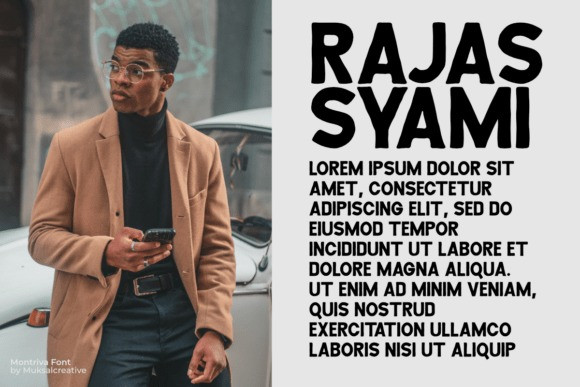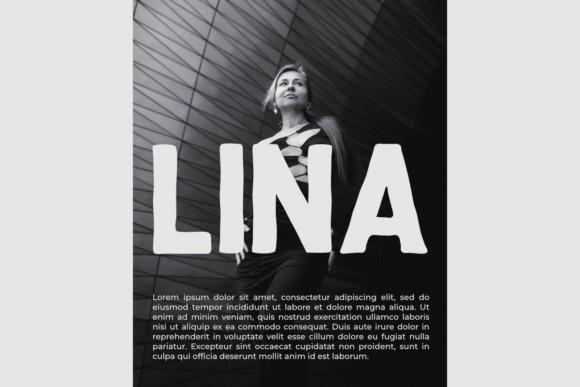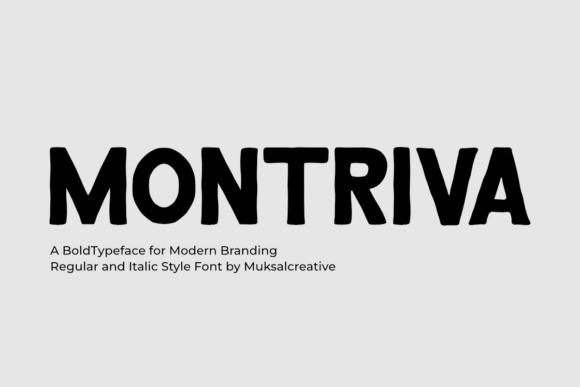
Montriva Font a bold sans-serif display font designed for high-impact communication. This typeface features thick, sturdy letterforms with a “humanist-geometric” soul, blending clean modern lines with subtle organic softening at the terminals for a friendly yet authoritative feel. With its substantial weight and excellent legibility, Montriva is the premier choice for tech startup identities, bold editorial headlines, professional apparel branding, and commanding “thought-leader” social media headers.